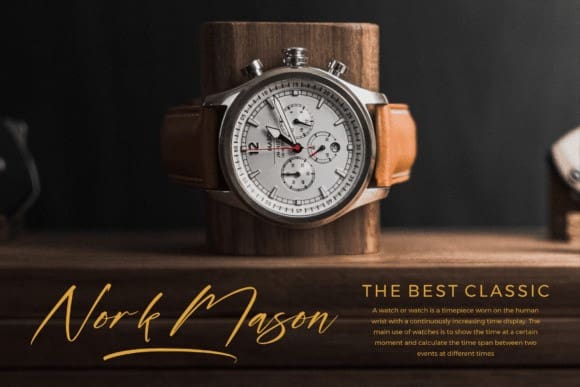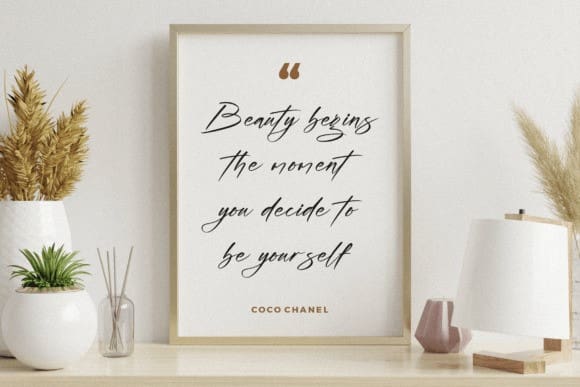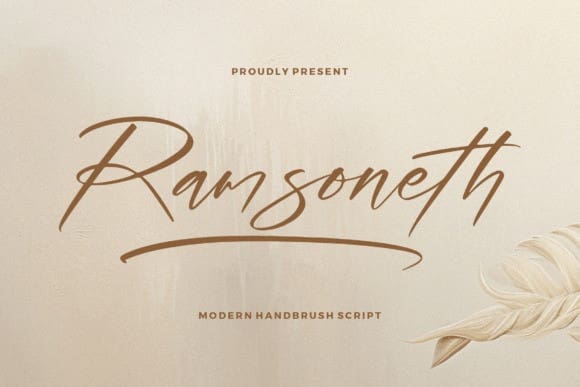
Ramsoneth Handwritten Font
Ramsoneth Handwritten Font is an enchanting handwritten font. This versatile script font has a wide spectrum of applications ranging from greeting cards to headlines and is guaranteed to add a romantic feel to your next project.